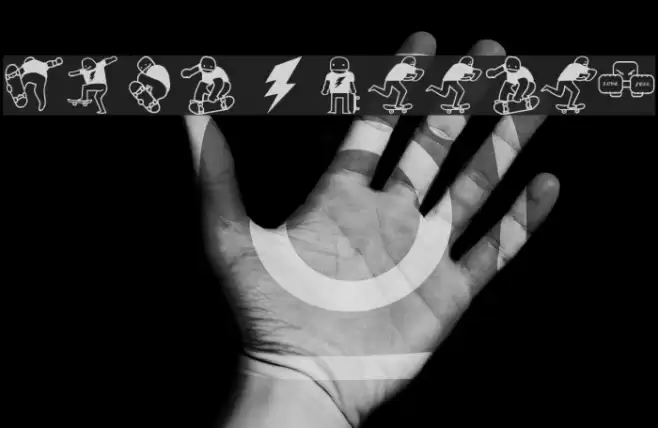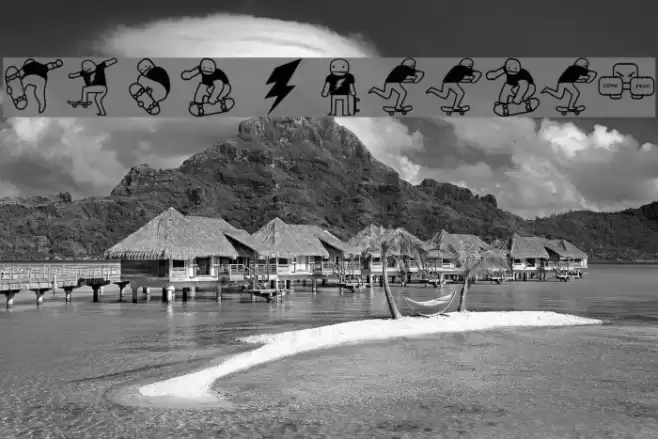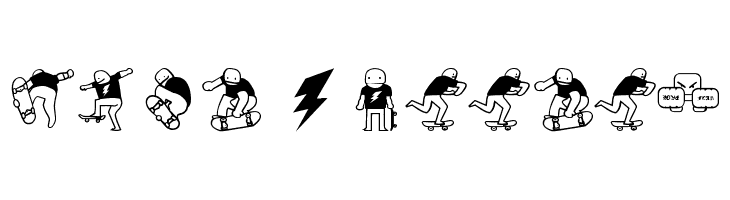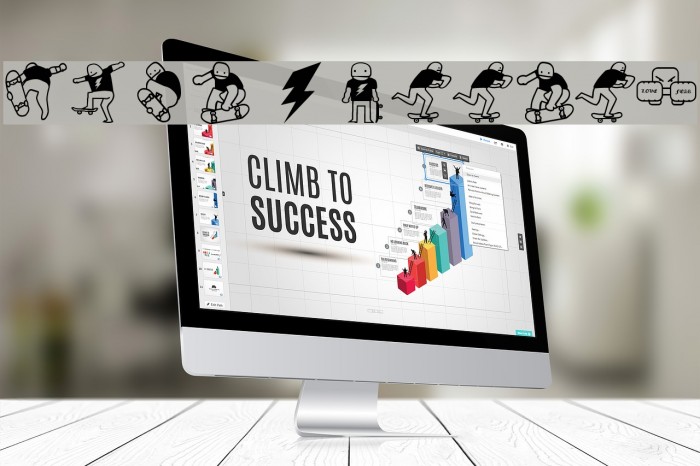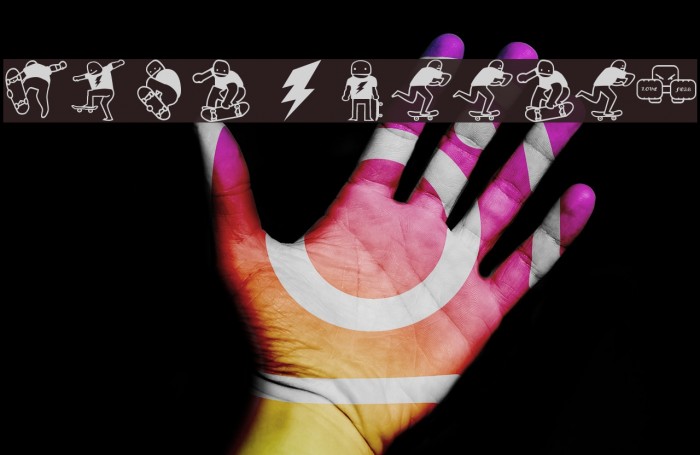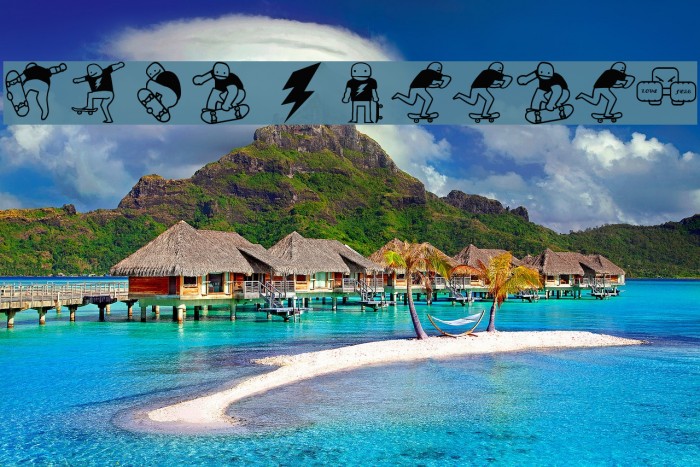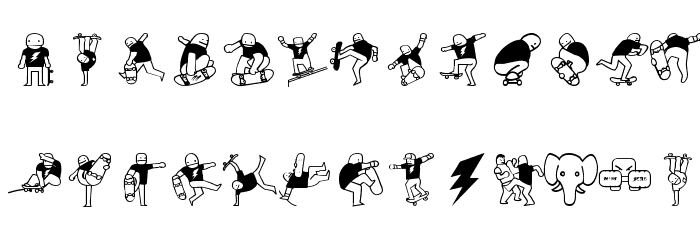
Mike vallely Font
Mike vallely Description
This is not a traditional font but rather a collection of playful, cartoon-style illustrations depicting various skateboarding poses and characters. Each character is dynamic, capturing the essence of movement and energy associated with skateboarding. The illustrations are bold and simplistic, using thick lines and minimal detail to convey action and personality. The characters are consistent in style, featuring rounded shapes and expressive postures, making them suitable for creative and informal applications.
A playful set of cartoon-style skateboarding illustrations from Dingbats fonts.
- Proposed Projects: Ideal for use in skateboarding-themed merchandise, children's books, or as decorative elements in graphic design projects.
- Overall Style: Playful, Cartoonish, Energetic
- Use Case: Decorative elements, Merchandise, Illustrations